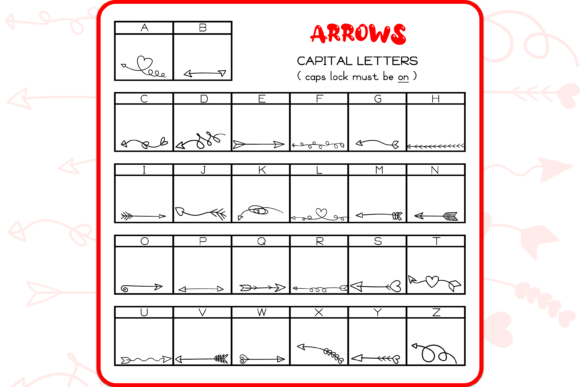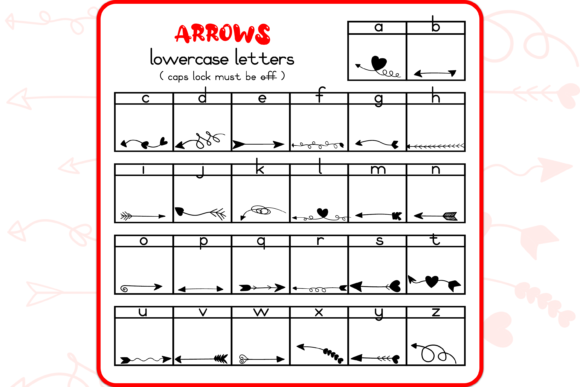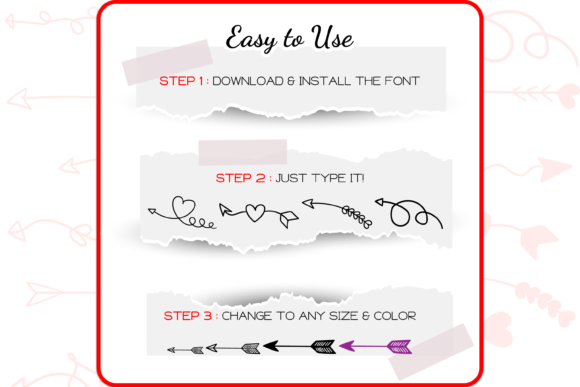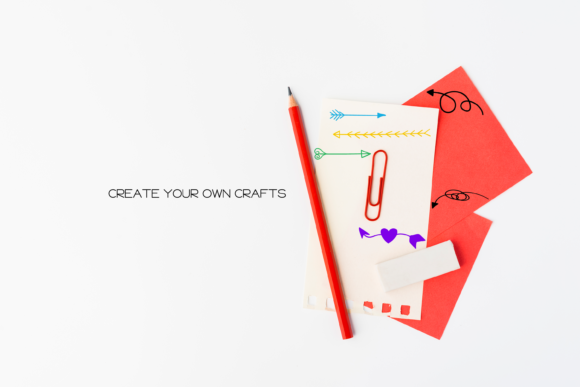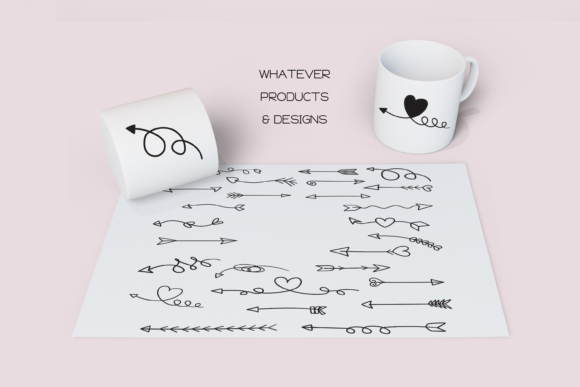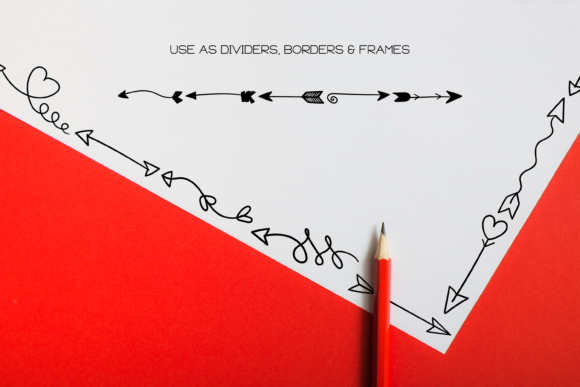
Unlock Your Creativity with the Arrows Dingbats Font
Have you ever stared at a blank canvas, struggling to bring your creative vision to life? You’re not alone. We’ve all been there, searching for that perfect element to tie our design together. For designers, finding the right font can make all the difference. That’s where the Arrows Dingbats Font comes in – a fun and trendy font containing 52 hand-drawn doodles.
With the Arrows Dingbats Font, you can add a personal touch to your designs, creating borders, dividers, and frames that will set you apart from the crowd. Whether you’re a seasoned designer or just starting out, this font is a valuable addition to your toolkit. Its versatility and unique charm make it an ideal choice for designers looking to add a creative twist to their work.
Arrows Dingbats Font Key Features
- Character Set: The font includes a unique set of arrow and dingbat characters, perfect for adding visual interest to presentations, documents, and designs.
- Unique Characteristics: The Arrows Dingbats Font features a distinctive, bold design with clean lines and simple shapes, making it easy to read and recognize.
Designer Review: Arrows Dingbats Font
Arrows Dingbats Font is an interesting addition to any designer’s toolkit. ✨ The font’s unique design and versatility make it a great choice for a wide range of projects, from digital displays to print materials. The font’s varied arrow designs allow for creative expression and add a touch of whimsy to any design.
- Unique design: Arrows Dingbats Font offers a fresh take on traditional font designs.
- Highly versatile: The font can be used in a variety of contexts, from modern to vintage-inspired designs.
- Good for creative expression: The font’s varied arrow designs allow designers to think outside the box and create unique visual elements.
However, there are some limitations to consider. ⚠️ The font may not be suitable for projects that require a more formal or traditional aesthetic. Additionally, some of the arrow designs may be too playful or cartoonish for certain audiences.
Overall, Arrows Dingbats Font is a fun and creative addition to any designer’s toolkit. While it may not be suitable for every project, it’s a great choice for designers looking to add a touch of whimsy and personality to their designs. With its unique design and versatility, it’s definitely worth considering for your next project.
Tips for Getting the Most Out of Arrows Dingbats Font
Use Arrows Dingbats Font to add visual interest to your designs and communicate complex information in a simple way. Some tips for getting the most out of this font include:
- Using arrows to point to specific information or highlight important details.
- Combining arrows with other icons and graphics to create visually appealing compositions.